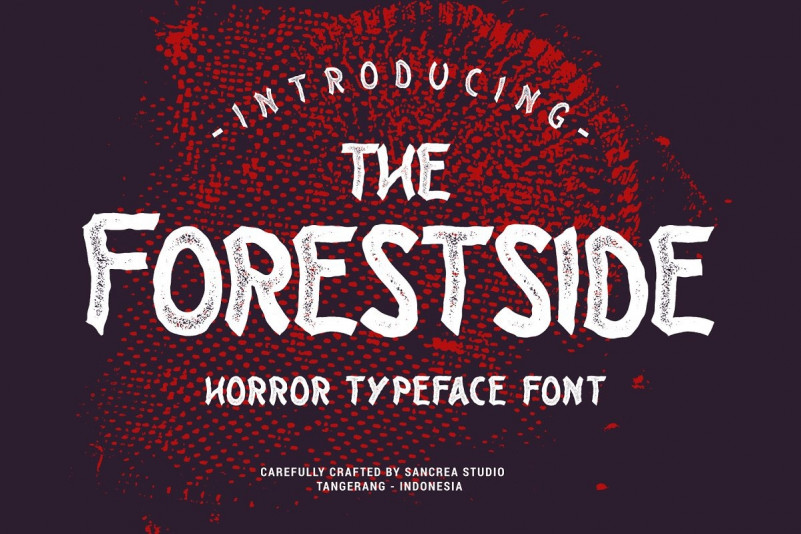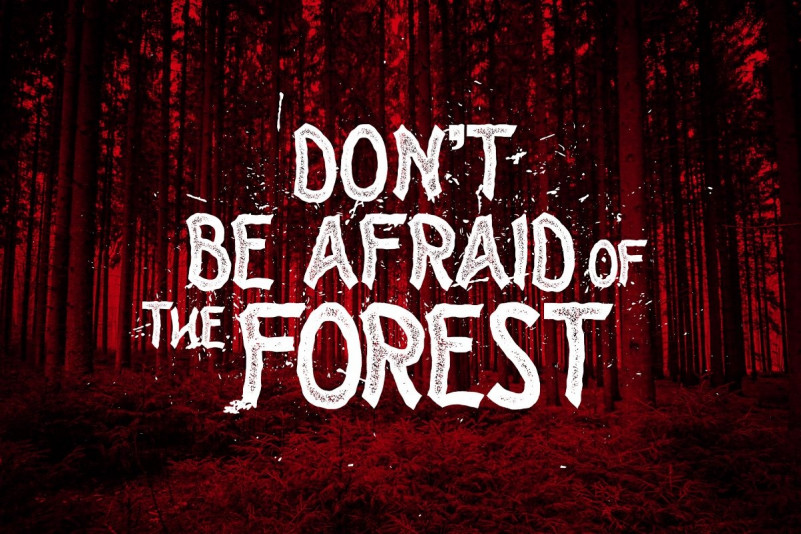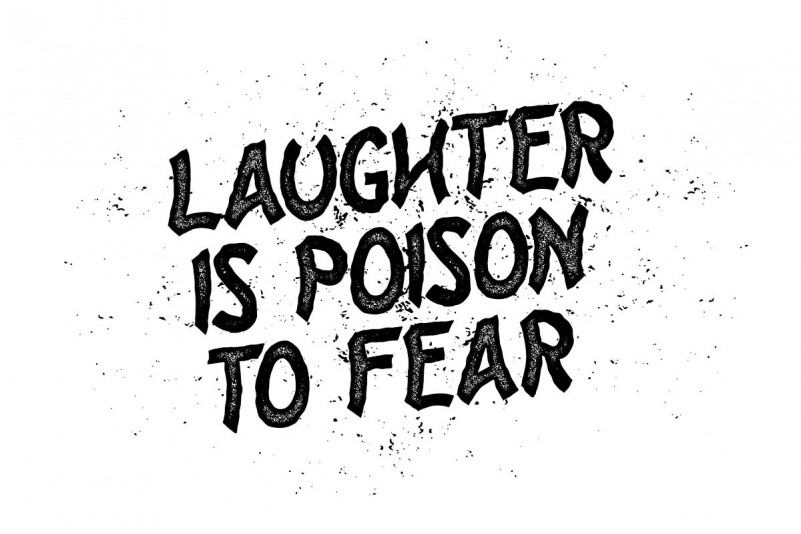
Forestside Display Font
Introducing new all caps display font that perfect for creating Halloween, Horror, Thriller theme projects. Inspired by classic Horror and Thriller movie posters. You can make a logo, quotes, poster, flyer, apparel, greeting cards, invitations using this font. Let’s bring back vintage Horror vibes into your designs.